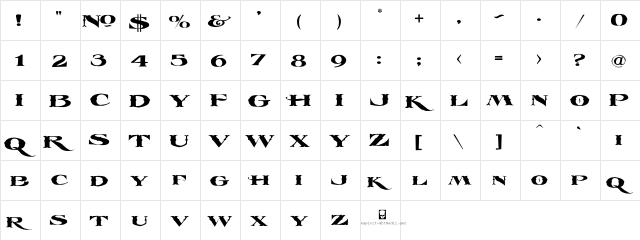
LHF Esoteric 3 Fancy Regular
| Foundry | Chuck Davis for Letterhead Fonts |
| Designer | Chuck Davis |
Design Context for LHF Esoteric 3 Fancy Typeface
LHF Esoteric 3 Fancy is a composed and adaptable typeface that performs quietly and consistently across a wide range of design contexts.